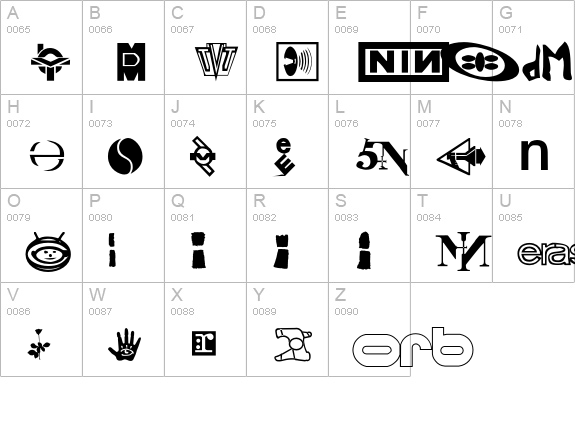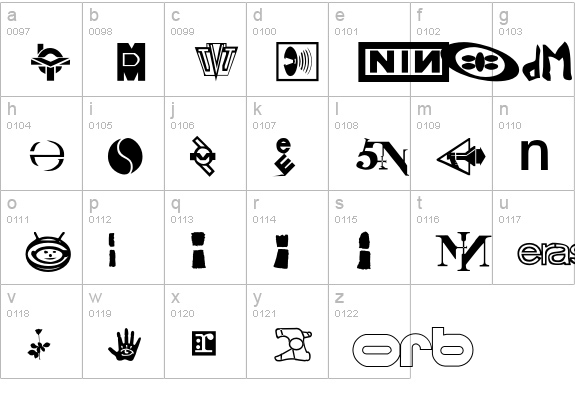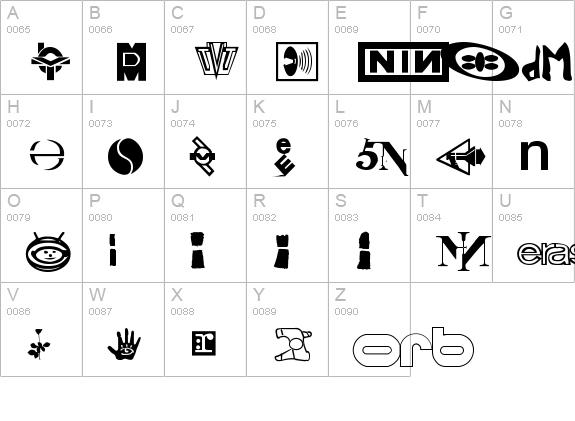
TechnoBats Font Details
Introducing TechnoBats, a cutting-edge font that merges the worlds of technology and design, creating a truly unique and futuristic typeface. With its sleek and modern aesthetic, TechnoBats is the perfect choice for those seeking to add a touch of innovation to their projects. Crafted with precision and attention to detail, TechnoBats features a series of sleek and stylish symbols that are guaranteed to make a bold statement. From futuristic icons and futuristic typography to intricate patterns and eye-catching elements, this font offers endless possibilities for creative expression. But what sets TechnoBats apart is not just its stunning design – it's also the fact that it is freely available to download at FontsMarket.com. Yes, you read that right – TechnoBats is completely free! Whether you're a designer looking to add a touch of sophistication to your next project or an individual seeking to express their creativity, TechnoBats is a font that won't break the bank. With its versatility and modern appeal, TechnoBats can be used across a wide range of design applications. From logo designs and branding materials to website graphics and social media posts, this font will instantly elevate your work to a whole new level. So why wait? Download TechnoBats today from FontsMarket.com and unleash your creativity with this free, truly groundbreaking font. With its sleek design and endless possibilities, TechnoBats is the perfect choice for those looking to make a lasting impression in the digital world. Don't miss out on this opportunity to redefine your design aesthetic – get TechnoBats now and let your imagination soar!